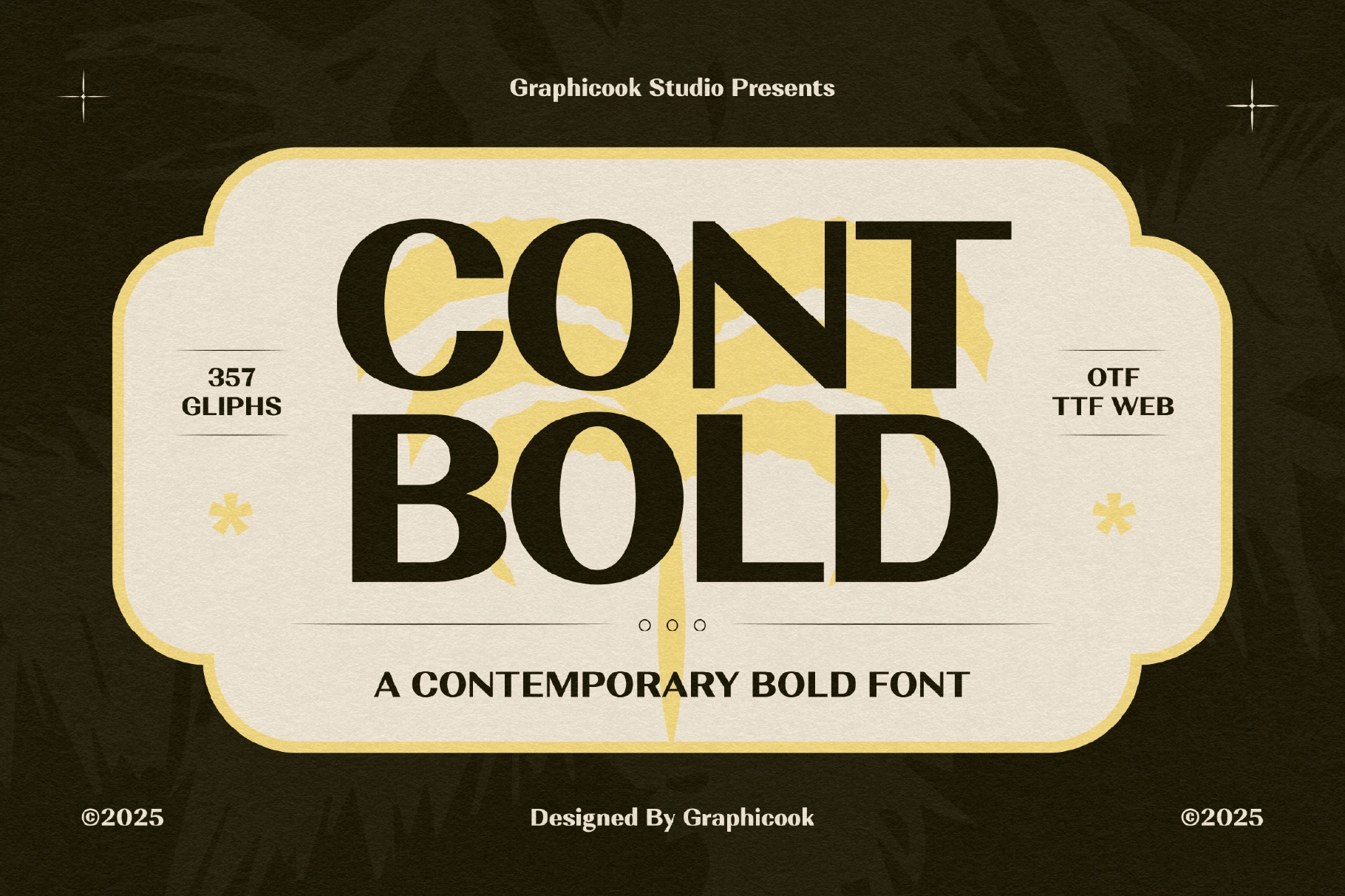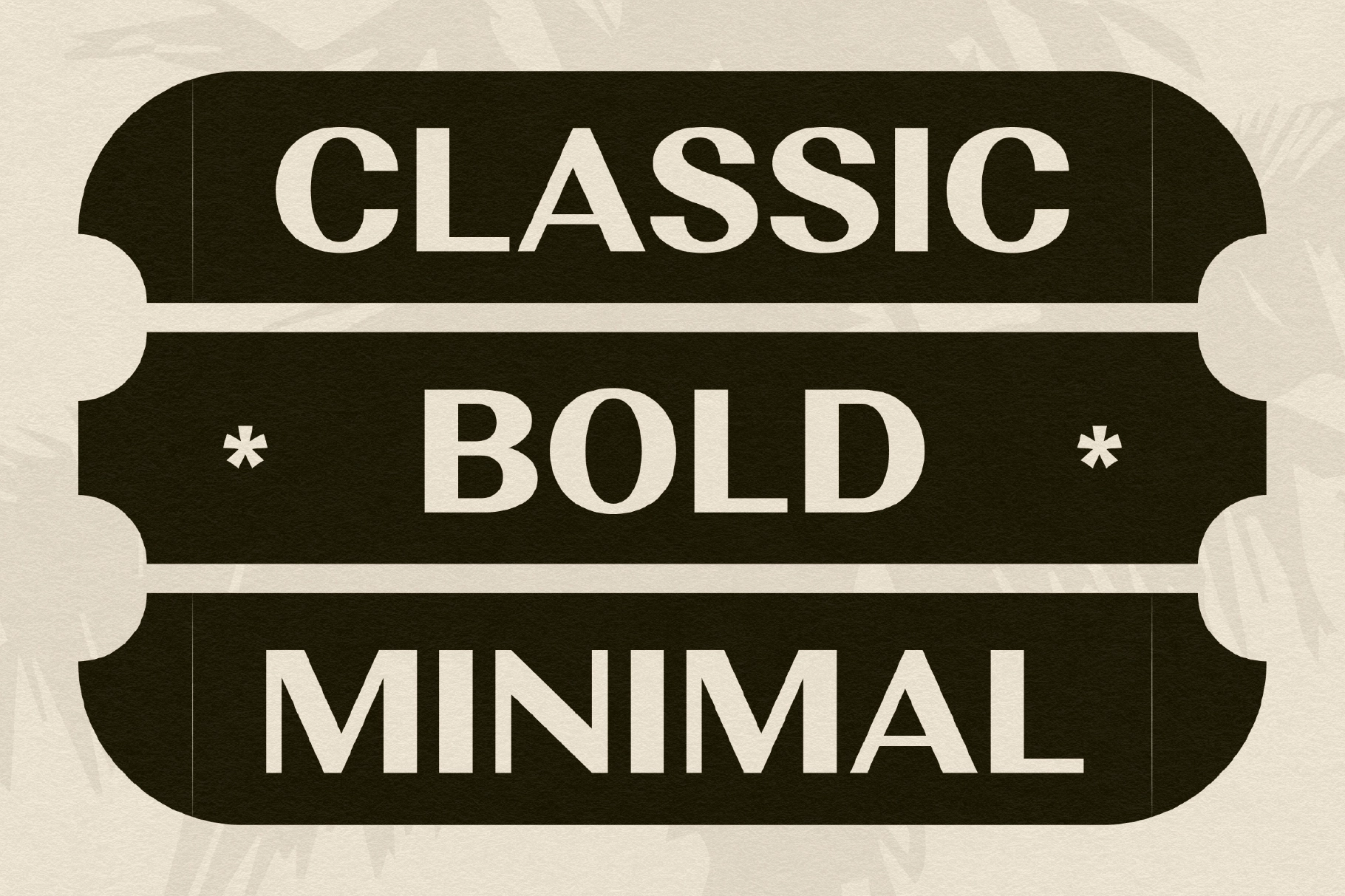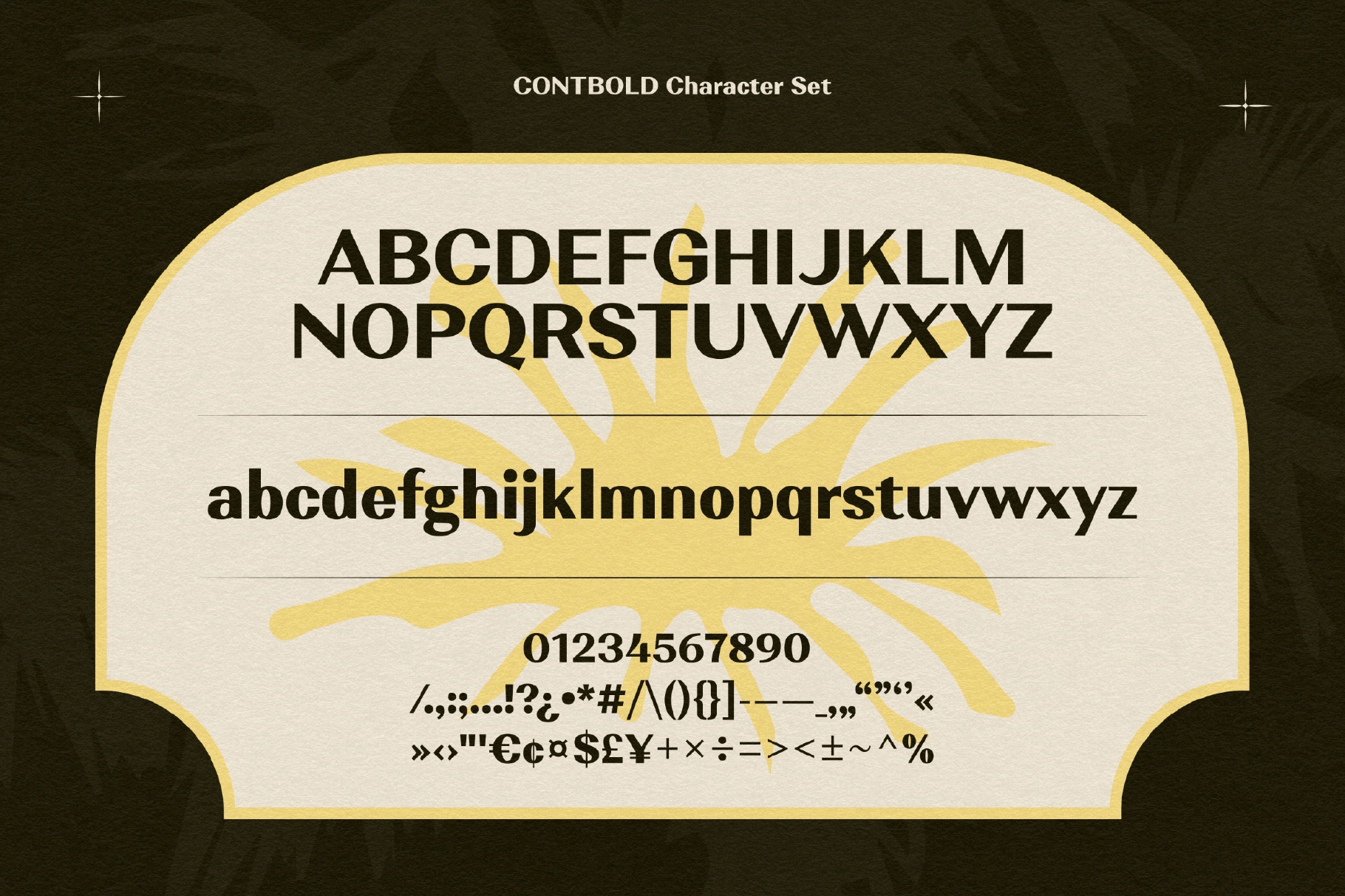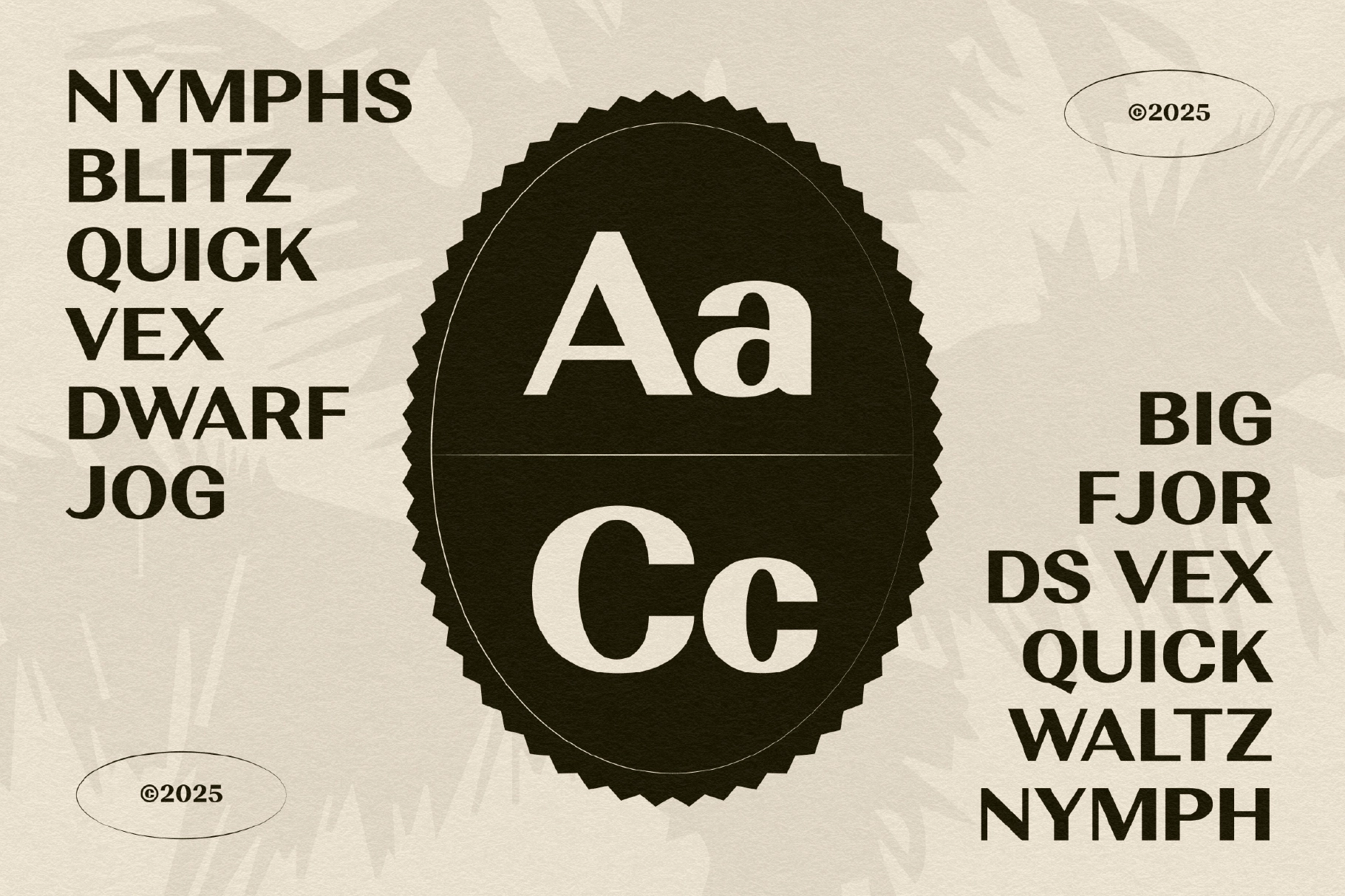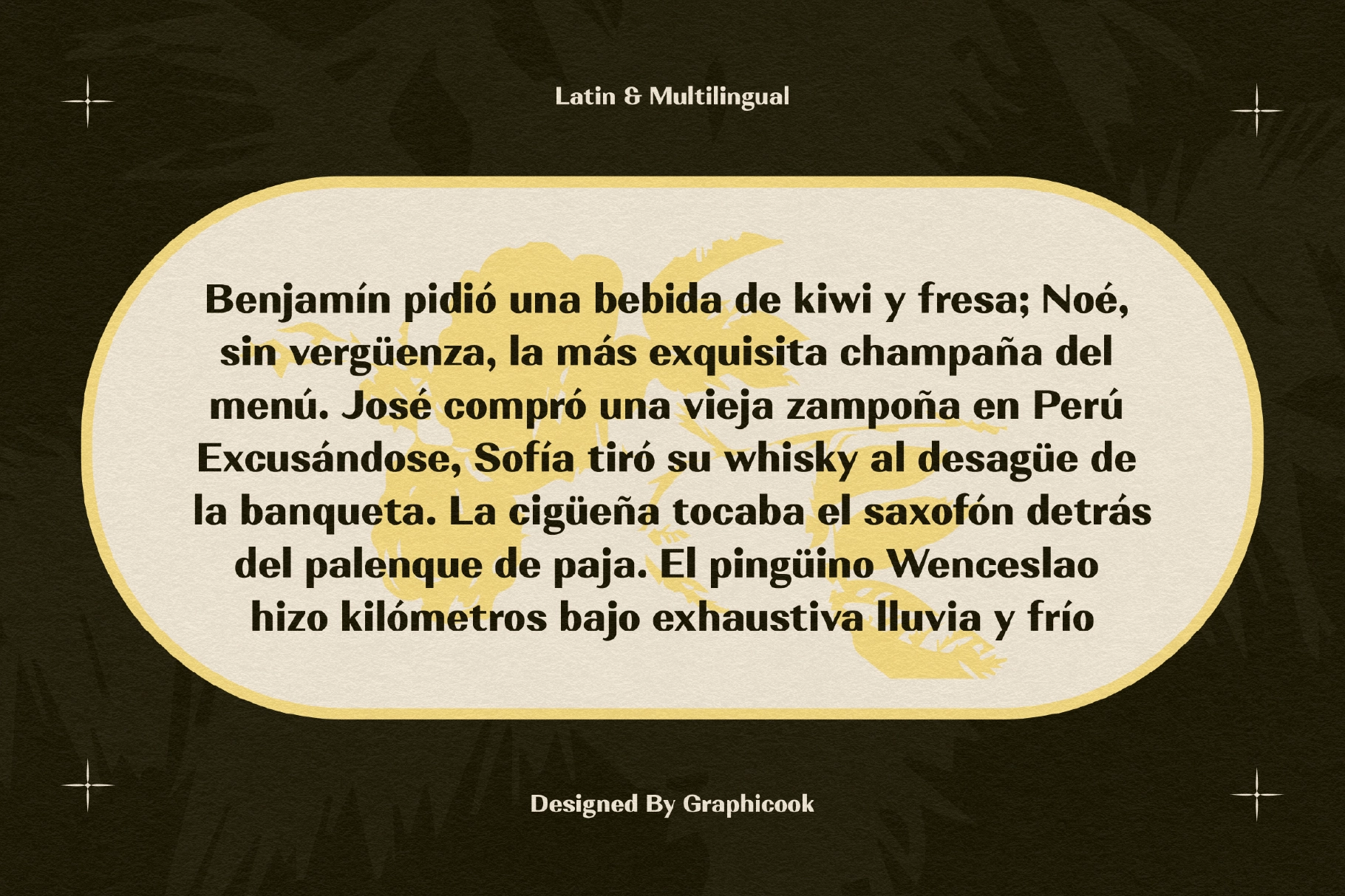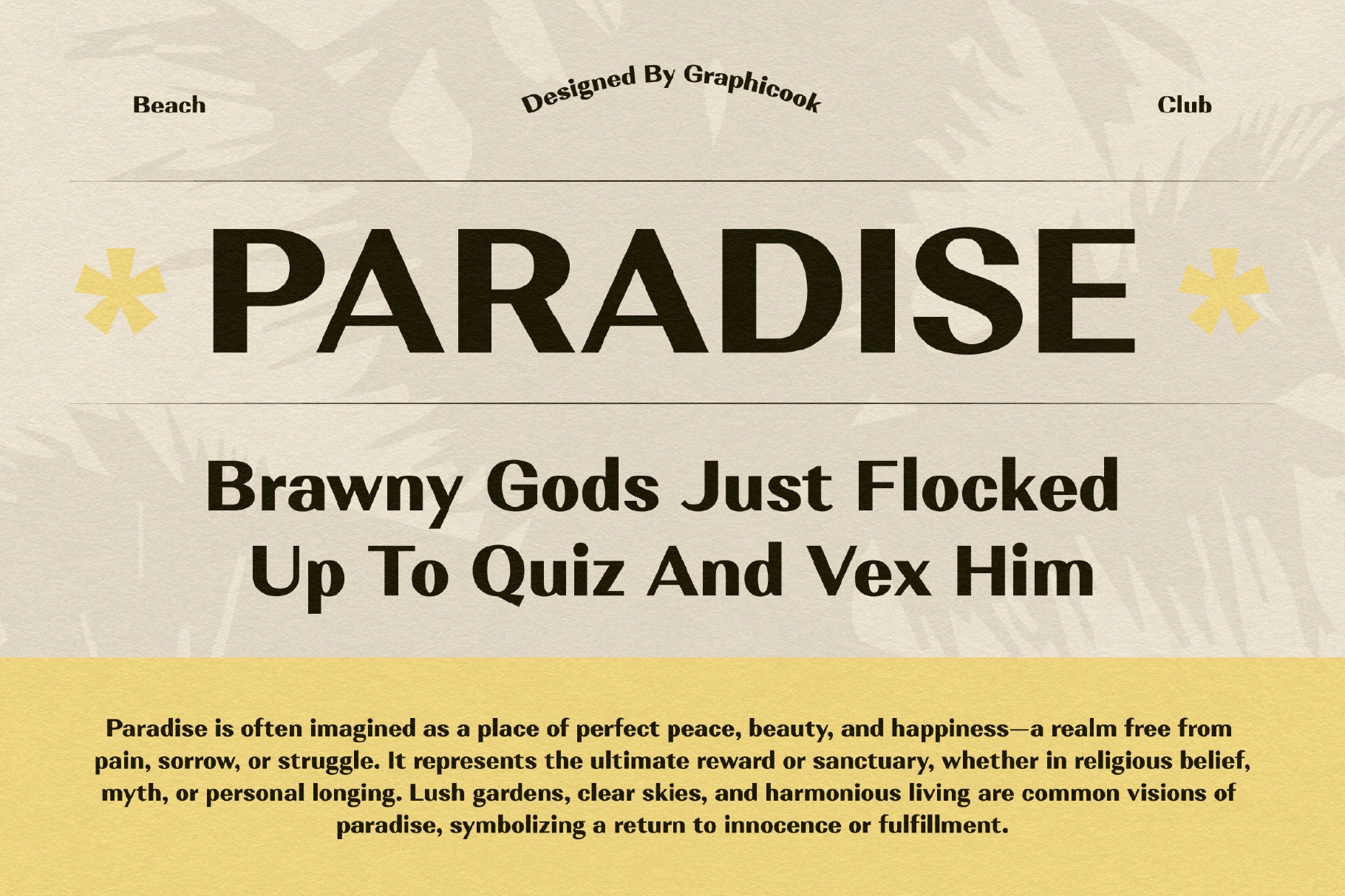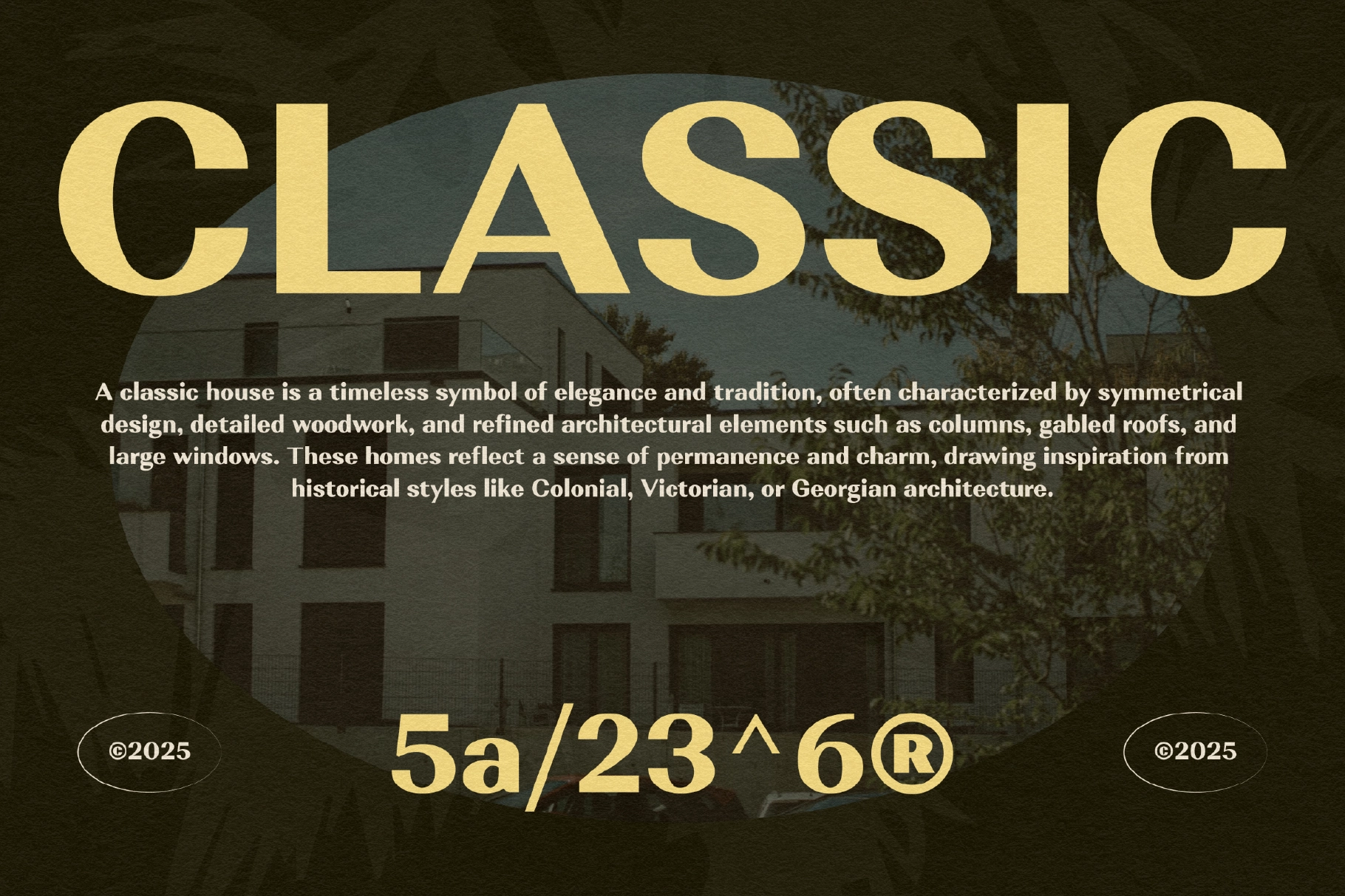
Contbold Font
Contbold is a sans-serif font with a subtle, understated character that remains highly readable at various sizes. Styled with a classic vintage touch, it’s ideal for elegant and timeless design themes.